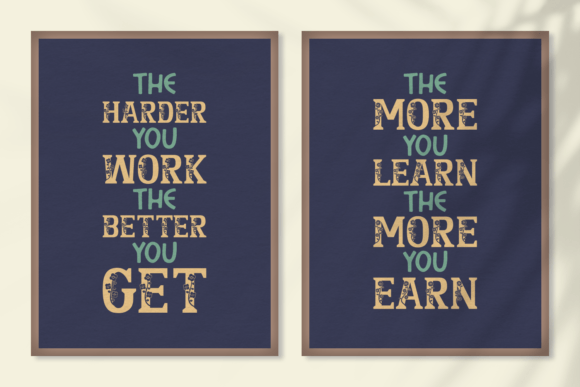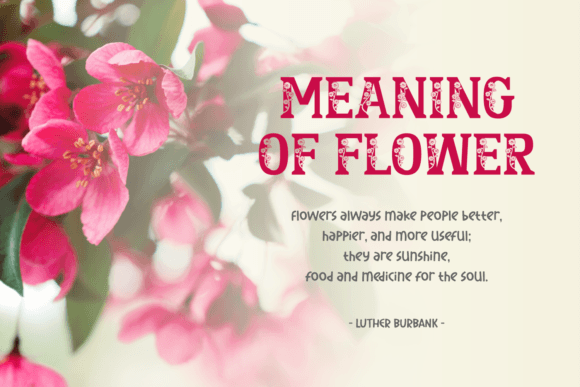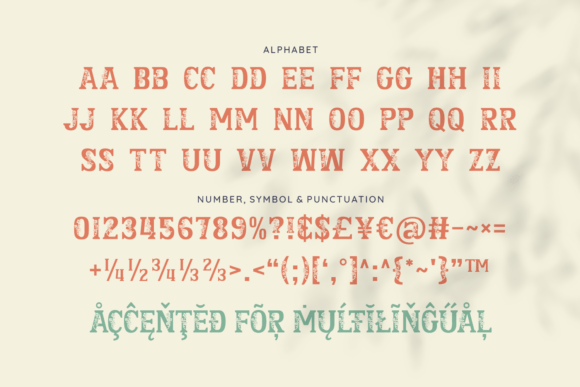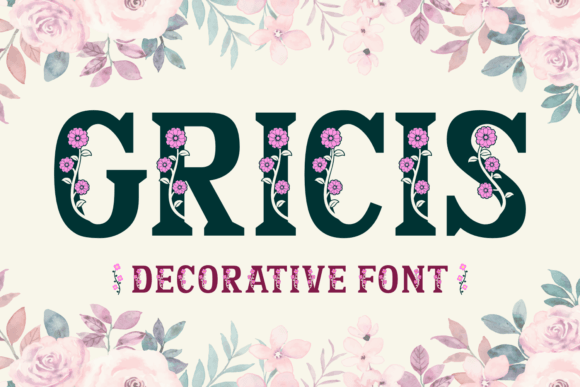
Introduction to Gricis Font
Gricis is a gorgeous and feminine decorative font.
This lovely flowers-inspired font is ideal for quotes, wall art, wall frames, spring cards, t-shirts, posters, wedding invites and many more This font is PUA encoded, so you can easily access all the glyphs.